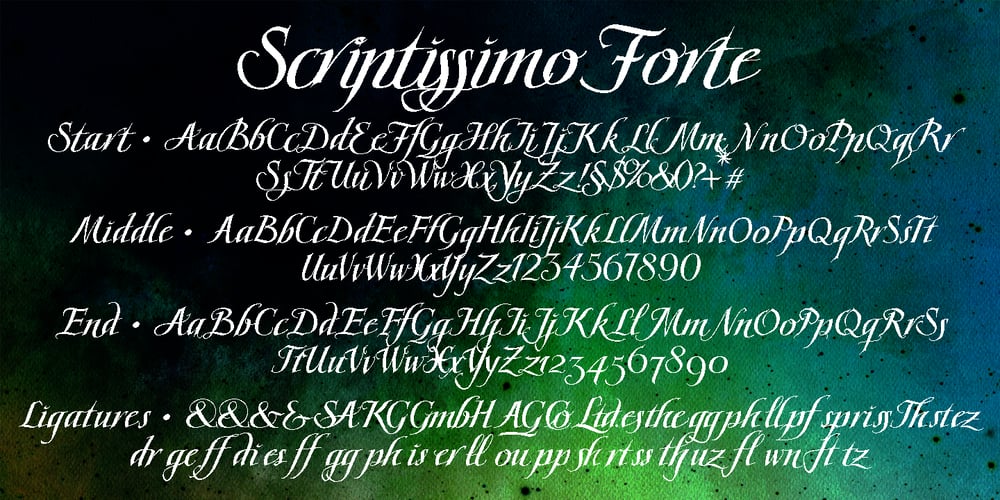
Scriptissimo Forte
Scriptissimo Forte font
Scriptissimo Forte Font Family was designed by Gert Wiescher and published by Wiescher Design. Scriptissimo Forte contains 4 styles and family package options. Scriptissimo-Forte is the bold version of Scriptissimo. When using the normal cut of Scriptissimo I sometimes had the feeling that I could well use a bolder cut to make a bigger impression, so I simply made that cut for myself. I think you can use it too; try it out. Yours very bold scriptissimo, Gert Wiescher